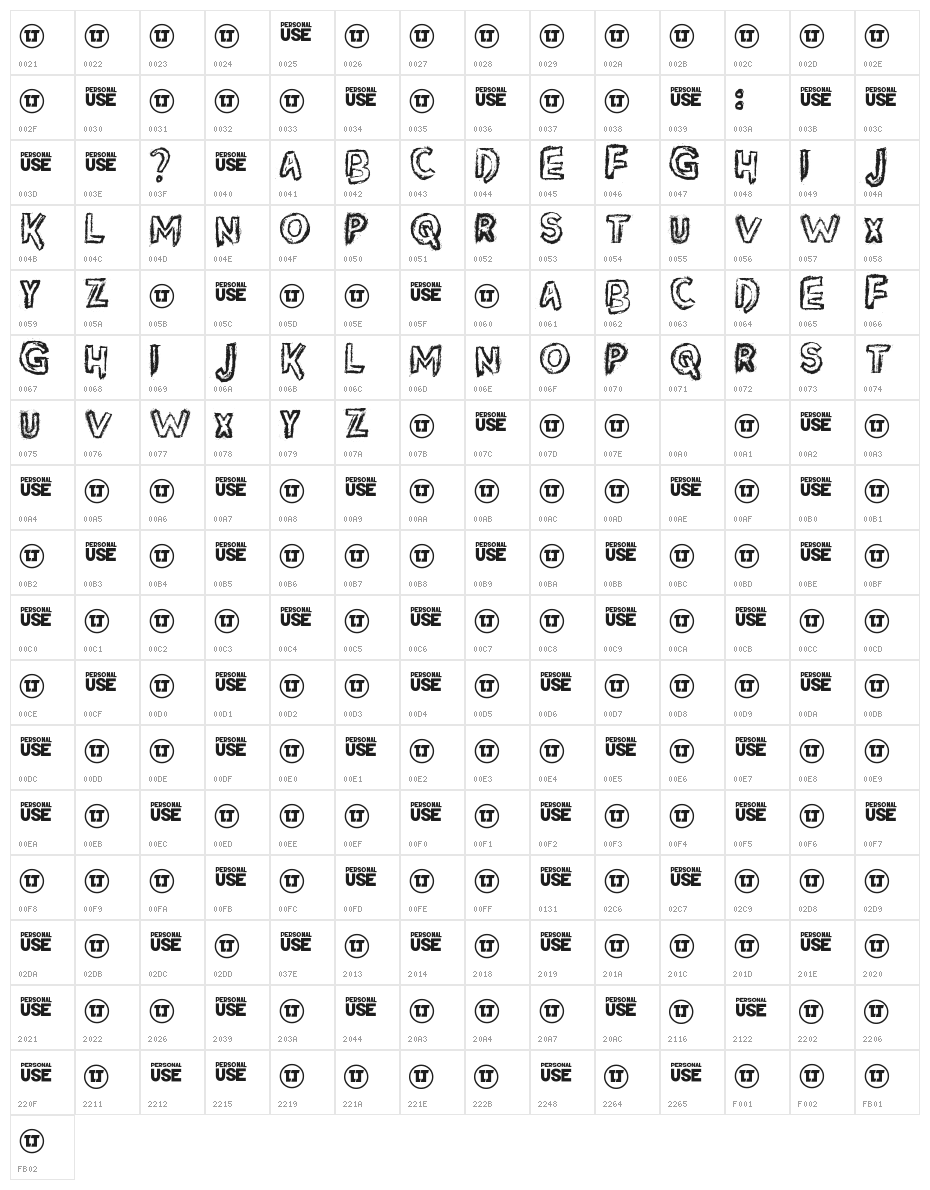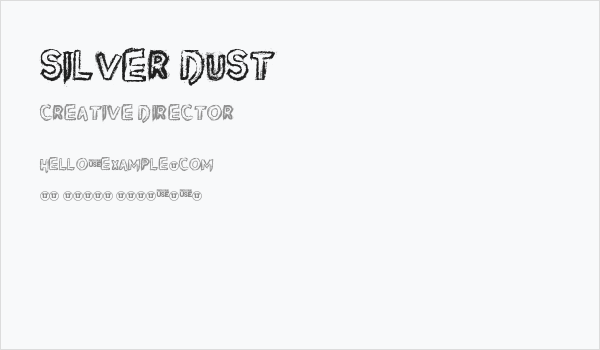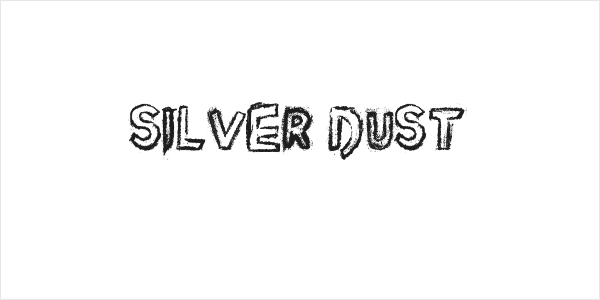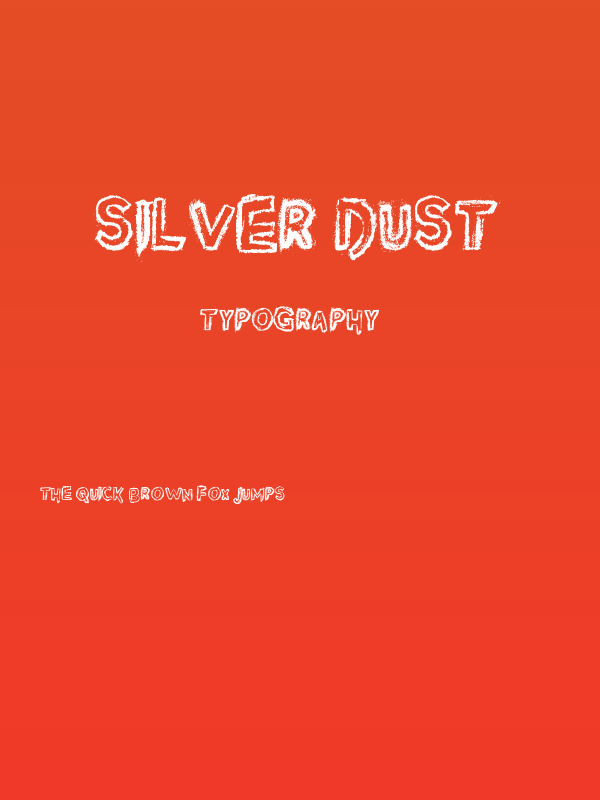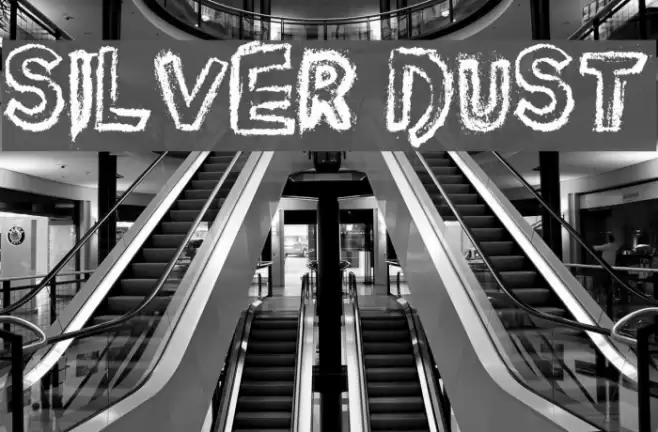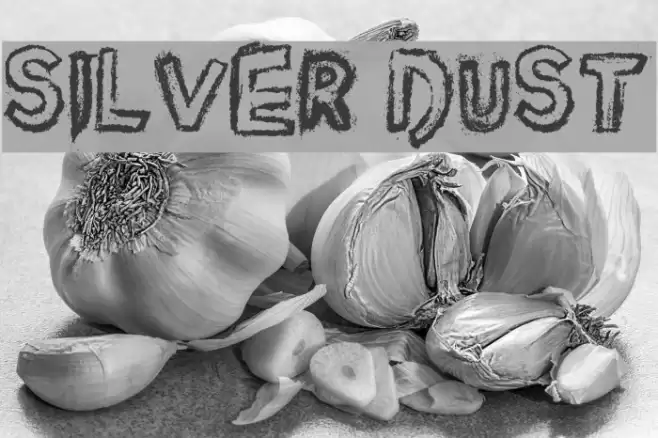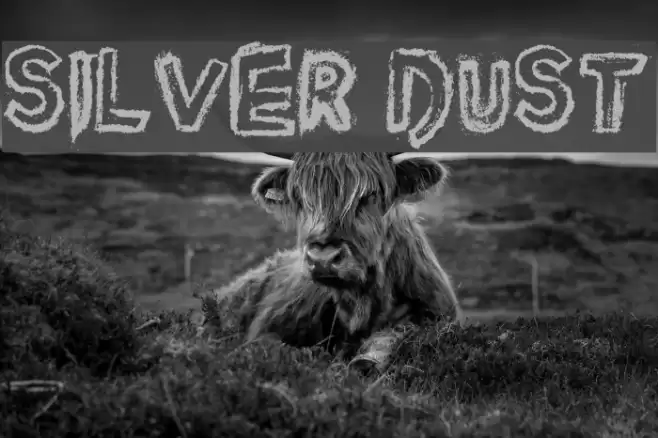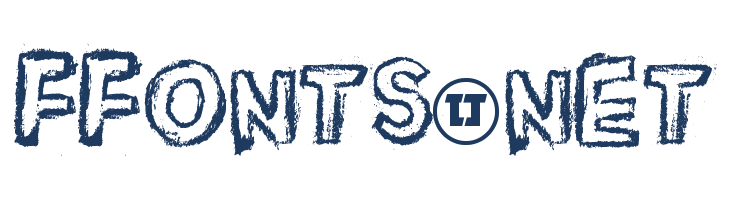
Silver Dust Font
Silver Dust Description
This font features a rugged, textured appearance that mimics the look of chalk or crayon strokes. Each character is outlined with a bold, uneven line, giving it a hand-drawn, artistic feel. The uppercase letters are distinct and bold, with a playful yet edgy style. The texture within the letters adds depth and a tactile quality, making it stand out in any design. This font is perfect for projects that require a creative and informal touch, such as posters, children's book covers, or artistic branding. Its unique style captures attention and conveys a sense of creativity and individuality.
| Overall Style | Artistic, Playful |
| Proposed Projects | Ideal for posters, children's book covers, artistic branding, and creative projects. |